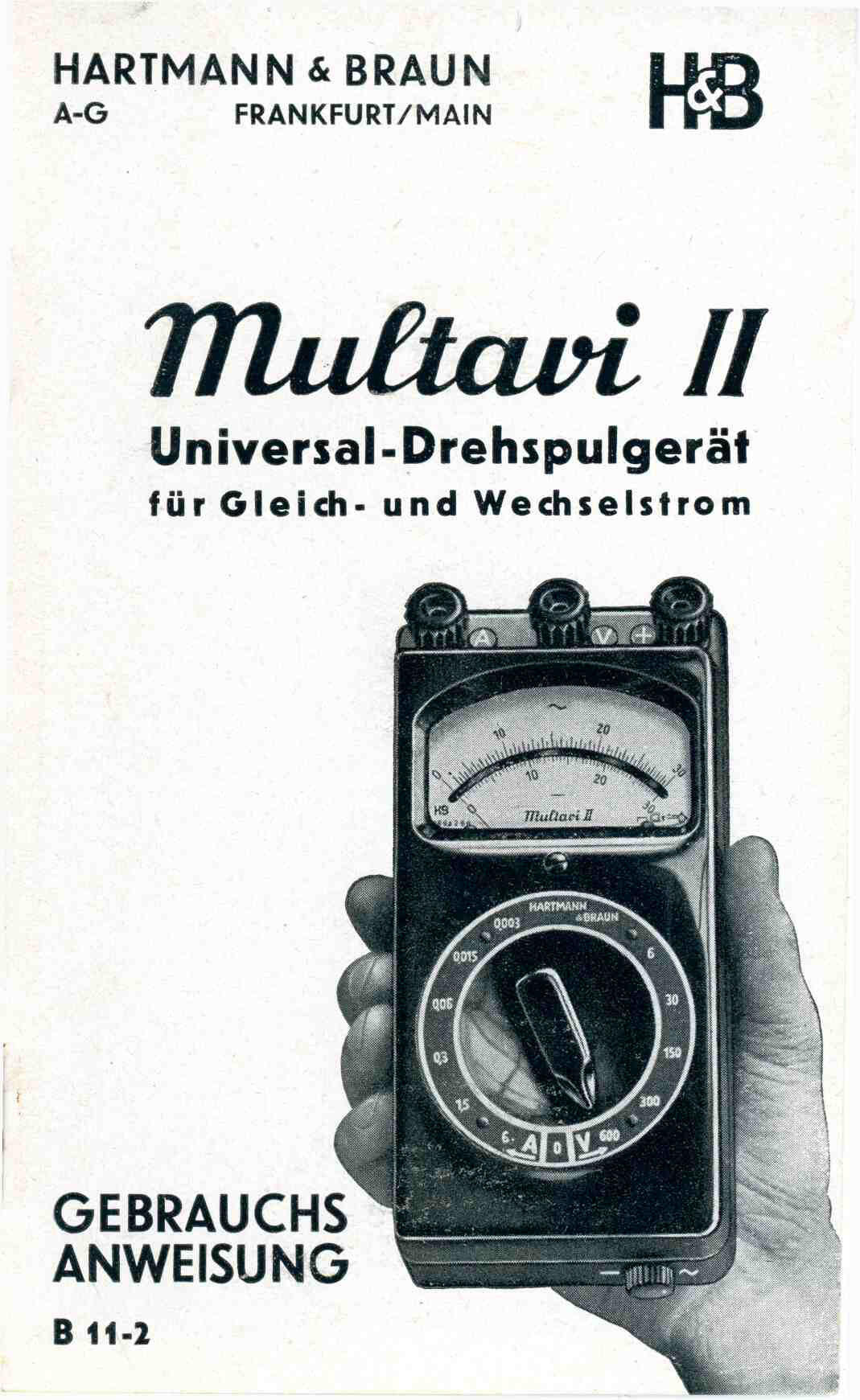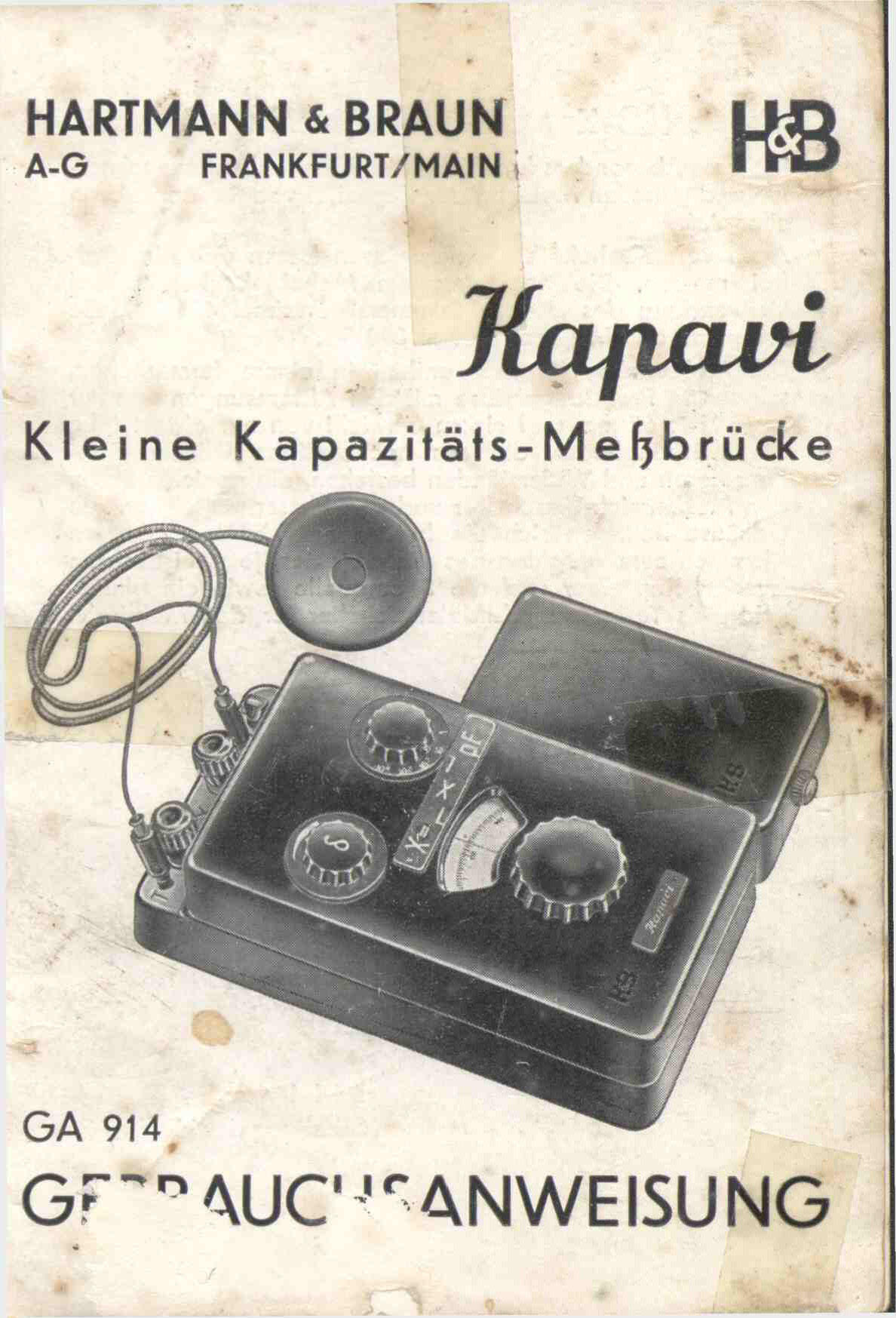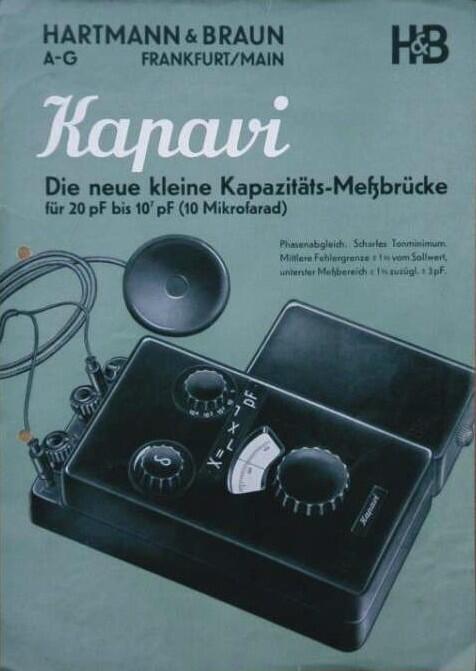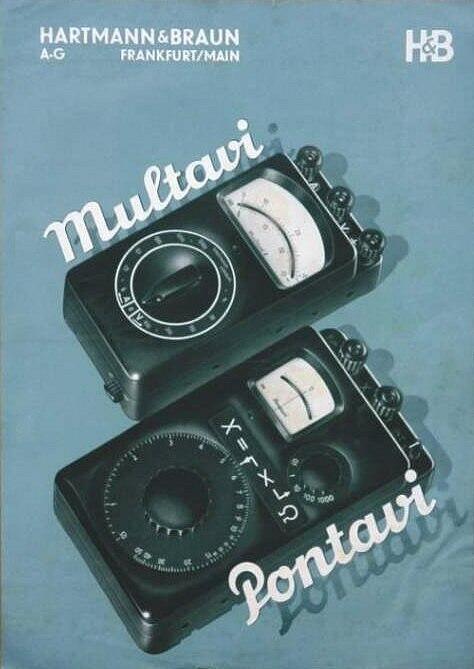
Handschrift oder Schriftart? Gesucht wird die Identifizierung der in Hartman & Braun-Publikationen der 1930er, 1940er und 1950er Jahre verwendeten Schreibschrift.
I am seeking to identify, if possible, the script letterforms used in Hartmann & Braun instruction manuals (and similar publications) for the tradenames of their products. Specifically, "Multavi I," "Multavi II," "Pontavi-Thomson," "Kapavi," etc.
Hartmann & Braun is a well-known German company specializing in the manufacture of electrical measuring devices for professional and industrial use.
I am attempting to restore a number of these original instruction manuals using the correct typefaces.
The text typeface used in the majority of these publications is, of course, Erbar. But the script lettering is a mystery to me. Can anyone identify it?
It is possible that the lettering is hand-drawn rather than a foundry-created typeface. But someone here may recognize it.
Ich versuche, wenn möglich, die in den Bedienungsanleitungen (und ähnlichen Publikationen) von Hartmann & Braun verwendeten Schriftarten für die Produktnamen zu identifizieren. Konkret geht es um „Multavi I“, „Multavi II“, „Pontavi-Thomson“, „Kapavi“ usw. Hartmann & Braun ist ein bekanntes deutsches Unternehmen, das sich auf die Herstellung elektrischer Messgeräte für den professionellen und industriellen Einsatz spezialisiert hat. Ich versuche, einige dieser Original-Bedienungsanleitungen mit den korrekten Schriftarten zu restaurieren. Die in den meisten Publikationen verwendete Textschrift ist natürlich Erbar. Die Schriftart der Schreibschrift ist mir jedoch ein Rätsel. Kann sie jemand identifizieren? Es ist möglich, dass die Schrift handgezeichnet und nicht von einer Schriftgießerei stammt. Vielleicht erkennt sie aber jemand hier.